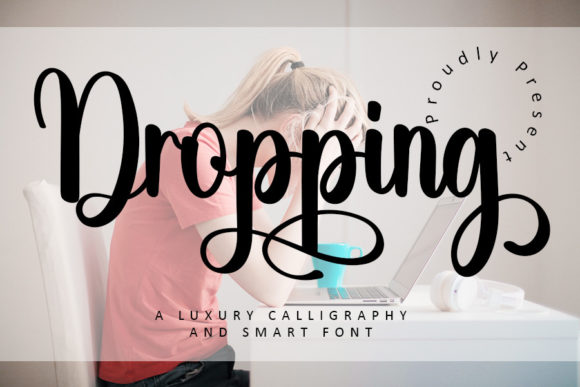
Dropping Font
Prepare yourself to be enthralled by Dropping, a breathtaking script font that will elevate your designs to unimaginable heights. Immerse yourself in a world of grace and allure as Dropping's meticulously crafted curves and delicate flourishes dance across your digital pages.
Crafted with the utmost care by the renowned Inermedia STUDIO, Dropping embodies the very essence of modern calligraphy. Its carefully curated alternates and ligatures grant you unparalleled versatility, empowering you to weave tales of whimsy and enchantment.
With Dropping, the possibilities are limitless. Unleash your creativity and adorn your memes with a touch of sophistication. Craft invitations that exude elegance, and pen love letters that ignite hearts. Let Dropping guide you on a journey of artistic expression, leaving a trail of visual splendor in its wake.
Indulge in the beauty of Dropping and witness the transformation of your designs into captivating masterpieces. Each stroke, each curve, and every detail has been meticulously designed to evoke emotions and leave a lasting impression.
Don't settle for ordinary fonts. Embrace the extraordinary with Dropping, the script font that will ignite your imagination and empower you to create designs that captivate and inspire.